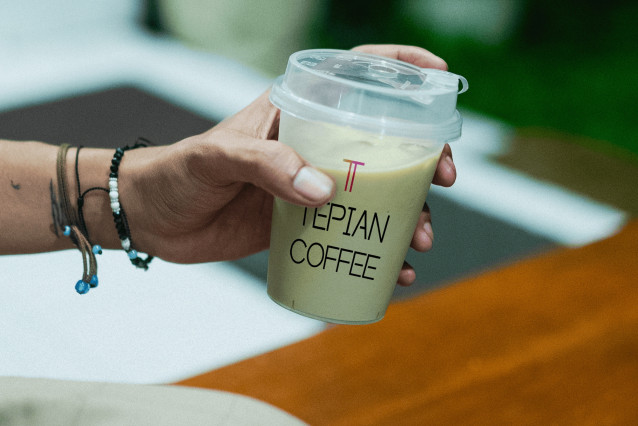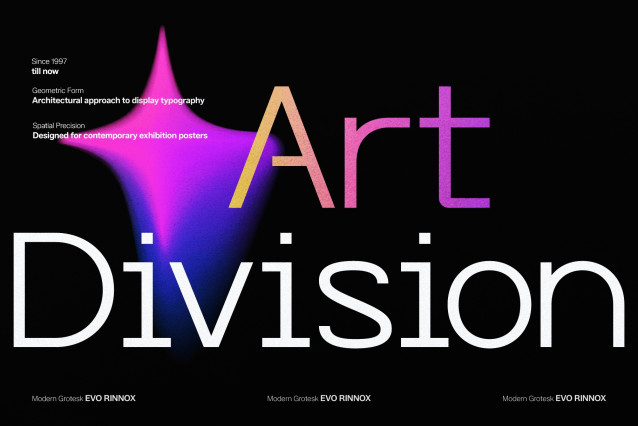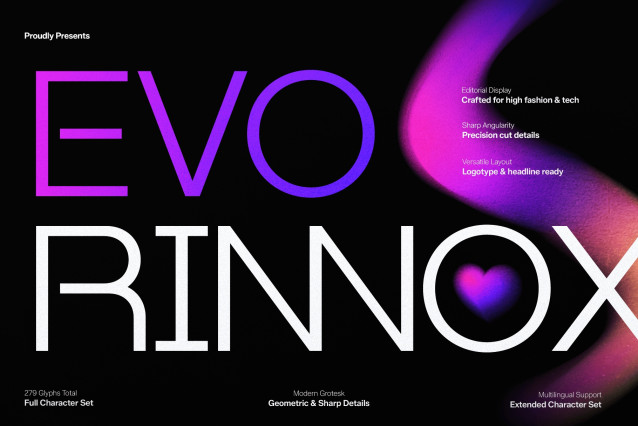
Evo Rinnox Modern Grotesk Font
Evo Rinnox Modern Grotesk, from Gracetypestudio, suitable for any projects such as: logos, branding projects, homeware designs, product packaging, mugs, quotes, posters, shopping bags, t-shirts, book covers, name card, invitation cards, greeting cards, label, photography, watermark, special events, and all your other lovely projects that need a sans Font taste.